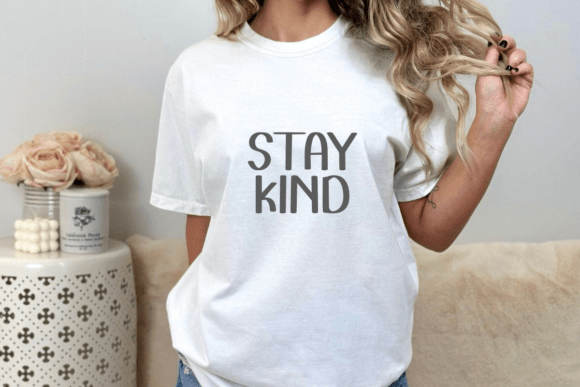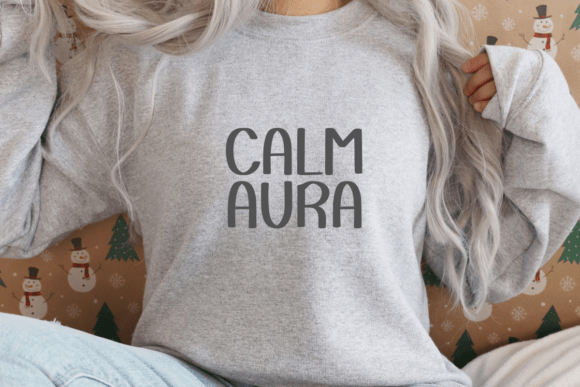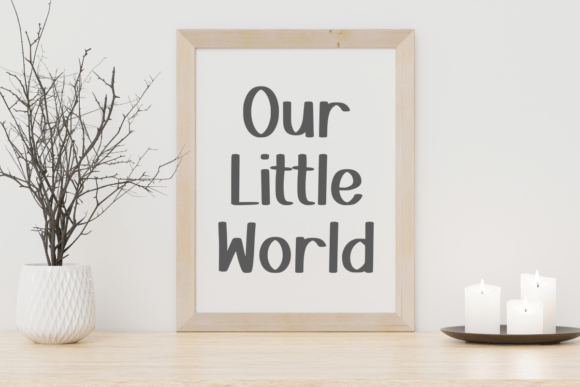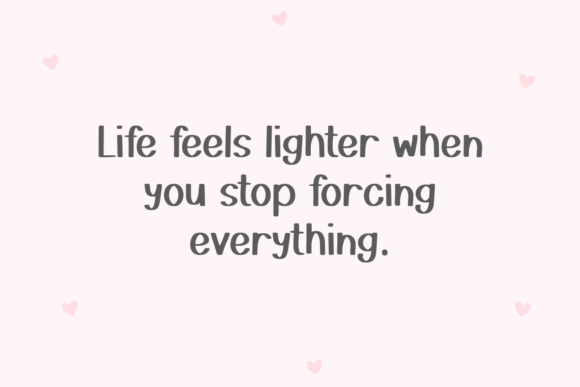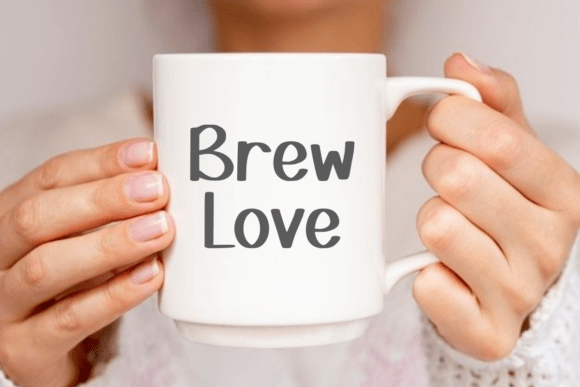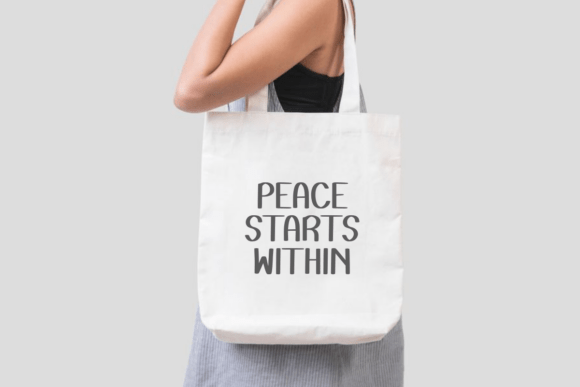
The Daily Secrets Font: A Sweet Sans Serif for Crafty Designs
Have you ever been in the middle of a crafting project, pouring your heart and soul into it, only to realize that the font you’ve chosen just isn’t cutting it? I know I have! It was a similar moment that led me to discover the Daily Secrets font, a cute sans serif handwriting font that has quickly become a staple in my design toolkit.
A Personal Design Moment: Finding the Perfect Font
I was working on a custom bullet journal for a friend, and I wanted a font that would bring a warm, handcrafted feel to the pages. I scoured the internet, trying out font after font, but nothing seemed quite right. That was until I stumbled upon Daily Secrets. Its soft, friendly, and natural look immediately caught my eye, and I knew I had found the perfect fit.
So, what do I love about Daily Secrets? Here are a few things that make it stand out:
- ✨ Soft and friendly appearance that’s perfect for crafty designs
- ✅ Easy to read, even at small sizes
- 👍 Simple strokes and smooth curves make it a joy to use
Of course, no font is perfect, and Daily Secrets is no exception. Here are a few quirks to keep in mind:
- 🤔 Limited character set compared to some other fonts
- ⚠️ Not ideal for body text or long blocks of writing
The Designer Inspiration Behind Daily Secrets
While I couldn’t find any information on the exact design process behind Daily Secrets, it’s clear that the font was created with love and care. The designer likely drew inspiration from everyday handwritten notes, craft projects, and children’s worksheets. The result is a font that feels approachable, friendly, and fun.
| Is Daily Secrets suitable for body text? | While Daily Secrets is easy to read, it’s not ideal for long blocks of body text. It’s best used for headings, titles, and short paragraphs. |